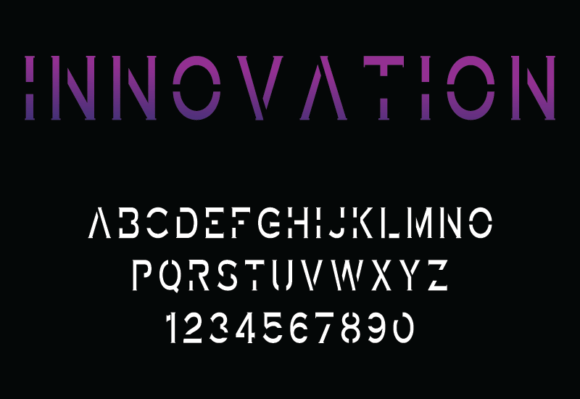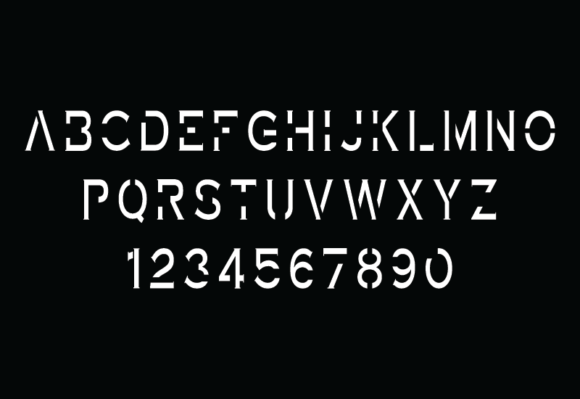
Introduction to Innovation Font Font
Fonts play a crucial role in design, and the Innovation Font font is a typeface that brings both character and versatility to any project. Whether you’re working on a branding project, a website, or a print design, the Innovation Font font offers a unique style that can elevate your work.
Innovation is a cool and modern Sans Serif font.
Add it confidently to your creative projects and notice how it makes them stand out from the crowd .
Key Features of Innovation Font Font
Why Choose Innovation Font Font?
The Innovation Font font is more than just a typeface – it’s a design tool that helps you communicate your message with style and clarity. Its unique character set and versatile design make it suitable for a wide range of applications, from elegant invitations to bold headlines.
With its carefully crafted letterforms and balanced proportions, the Innovation Font font ensures readability and visual appeal across all mediums.
What makes Innovation Font font special?
The Innovation Font font stands out with its unique design, exceptional readability, and versatility across various design applications.